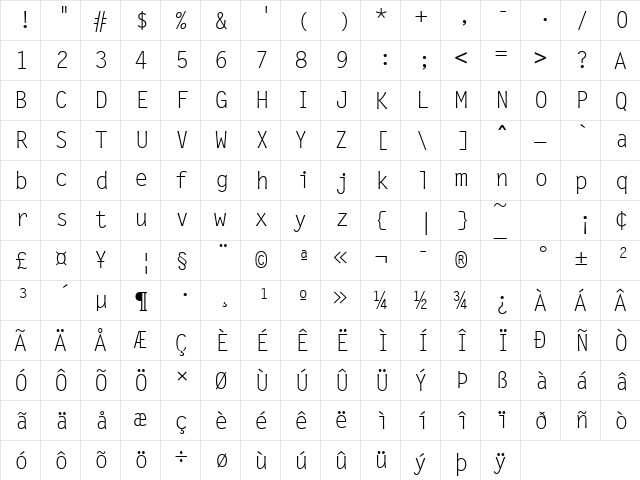
LetterGotMReg Regular
Design Context for LetterGotMReg Typeface
LetterGotMReg offers clean, dependable letterforms without strong stylistic allegiance, making it a practical choice for designers who need flexibility.